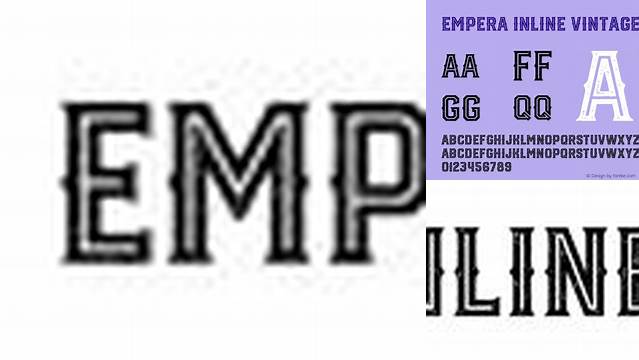
Hey guys! Are you looking for that perfect vintage touch for your designs? The Empera Inline Vintage Font might just be what you need. In this guide, we'll dive deep into everything you need to know about this awesome font, including where to find it, how to use it, and some creative ideas to get you started. So, let's get this show on the road!
What is Empera Inline Vintage Font?
Empera Inline Vintage Font is a typeface that beautifully marries the elegance of vintage design with modern usability. It features a unique inline style, meaning there are lines within the main strokes of the letters, giving it a distinctive, slightly distressed appearance reminiscent of old signage and posters. This font is perfect for projects that aim to evoke nostalgia, sophistication, or a classic feel. Think logos, branding materials, headlines, and even social media graphics – Empera Inline can add that special something to make your work stand out.
The charm of Empera Inline lies in its ability to transport viewers back in time. The inline detailing isn't just decorative; it adds depth and texture that makes the font visually appealing. It’s not overly ornate, which ensures readability even in smaller sizes. This makes it a versatile choice, suitable for both display purposes and shorter blocks of text. Plus, its vintage character ensures that your designs will have a unique edge, setting them apart from the more generic, modern fonts flooding the market.
Using Empera Inline isn't just about aesthetics; it's also about making a statement. When you choose a vintage font, you’re signaling a connection to history, craftsmanship, and timeless design principles. It tells your audience that you value quality and attention to detail. Whether you're designing a logo for a craft brewery, creating posters for a retro-themed event, or developing branding for a high-end boutique, Empera Inline can help you communicate your message with style and authenticity. The font’s inherent personality can elevate your designs and leave a lasting impression.
Empera Inline: A Timeless Choice for Modern Design
Despite its vintage roots, Empera Inline Vintage Font remains a timeless choice for modern design. Its unique character and versatility make it a valuable asset for any designer looking to add a touch of history and authenticity to their work. By understanding its strengths and limitations, and by following best practices for font usage, you can harness the power of Empera Inline to create designs that are both visually appealing and memorable.